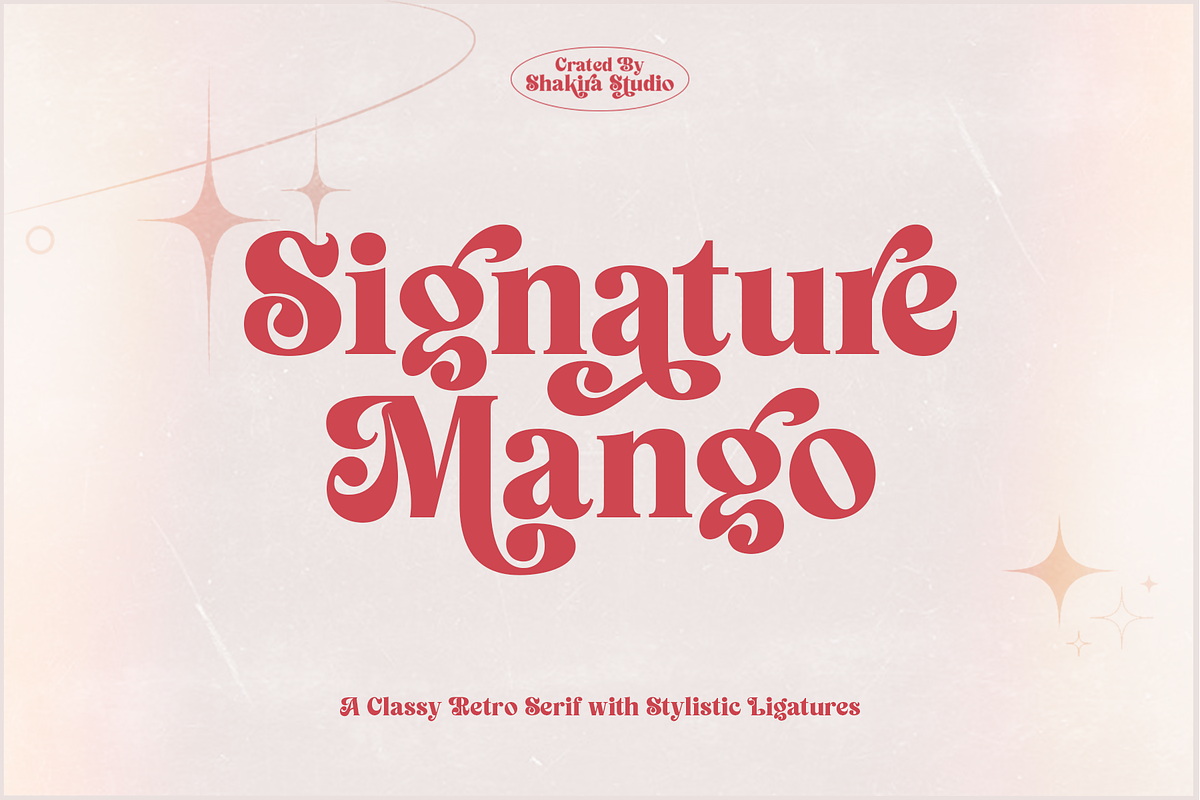
Signature Mango - Modern Retro Font Free Download
Signature Mango – Modern Retro Font Free Download is a stylish and funky typeface that blends nostalgic retro vibes with a fresh, modern twist. With its groovy curves, bold strokes, and playful personality, this font is perfect for logos, posters, apparel design, packaging, and social media graphics that need a pop of vintage flair.
Designed to stand out, Signature Mango brings a sense of fun and freedom to any creative project. Whether you're working on a 70s-inspired brand or simply want to add some character to your typography, this font delivers charm in every letter.